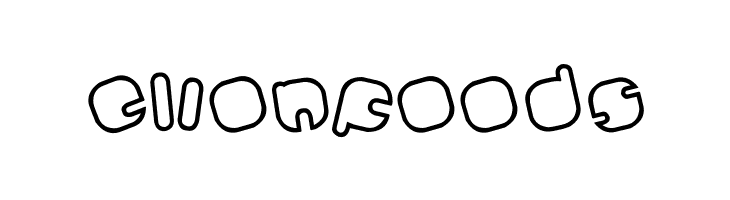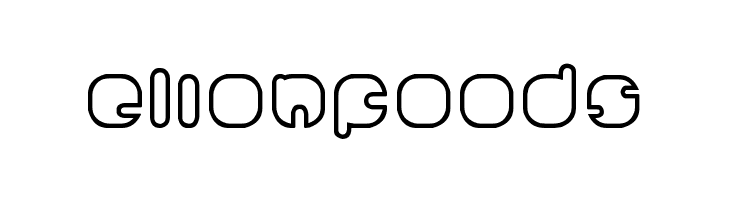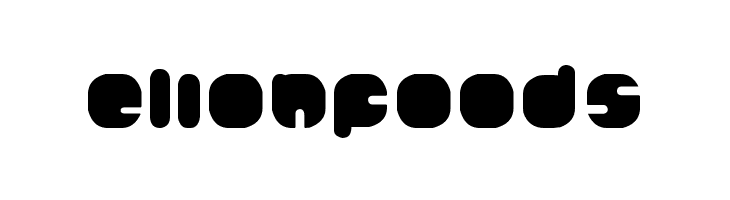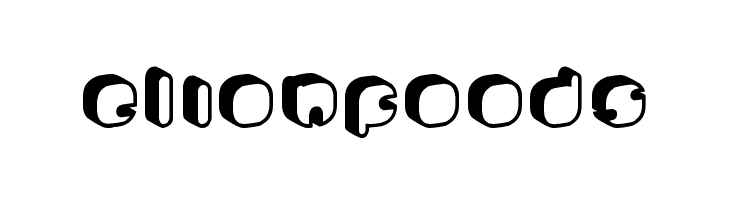
A playful, hand-drawn font with bold, rounded outlines and a whimsical style.
A modern, playful font with rounded edges and hollow interiors.
A playful, bold font with a unique shadow effect and rounded, bubbly characters.
A bold, rounded, and playful font with a modern style.
A playful, bold font with a 3D effect and rounded letters.